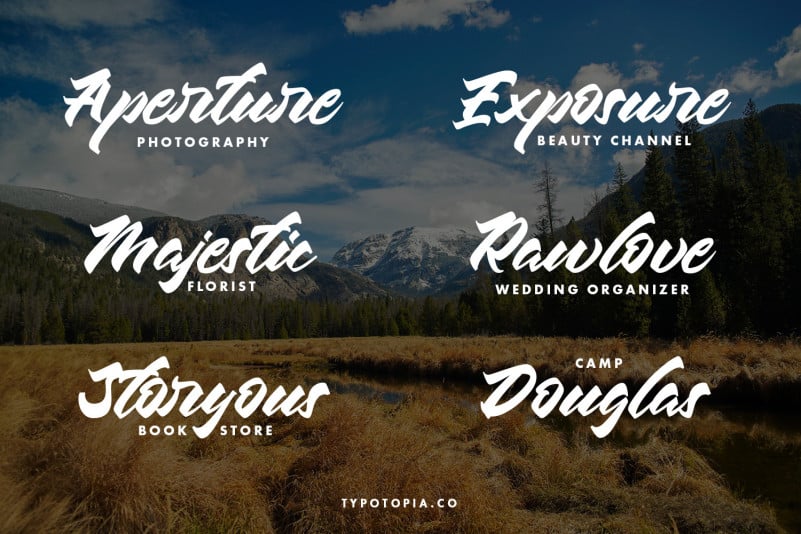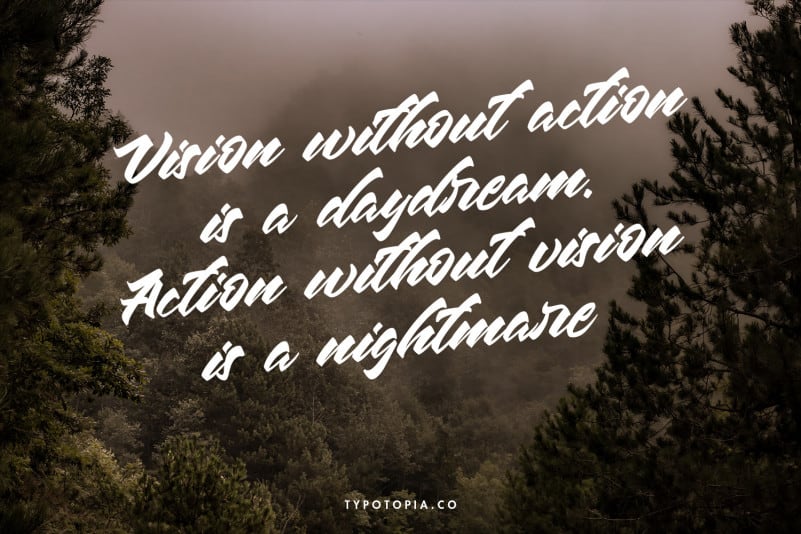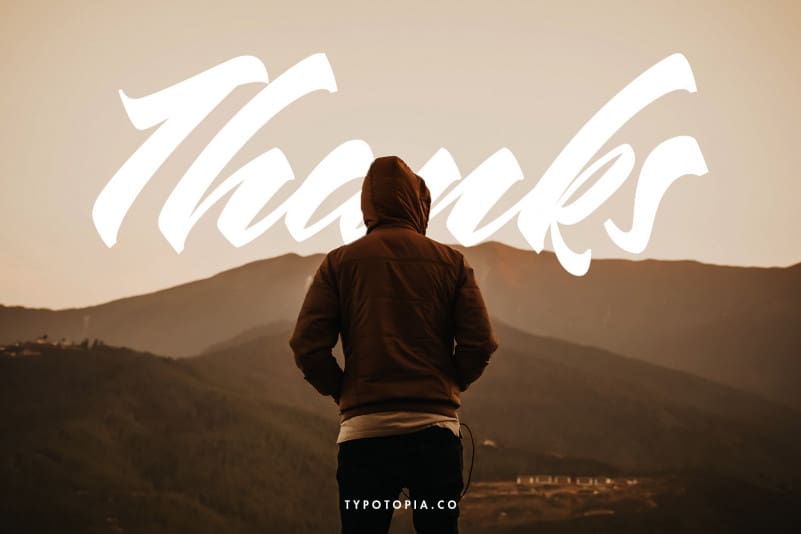
Chesnut Modern Script Font
Introducing Chesnut Modern Script Font is a Beautiful and Unique modern script Fonts. This type of font perfectly made to be applied especially for logos, fashion, stationery, magazines, menus, books, invitations, greeting cards, packaging, labels, apparel, marketing, business cards, etc.